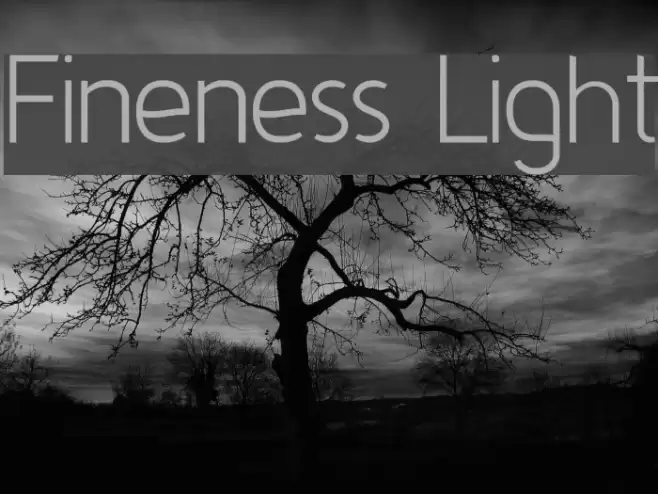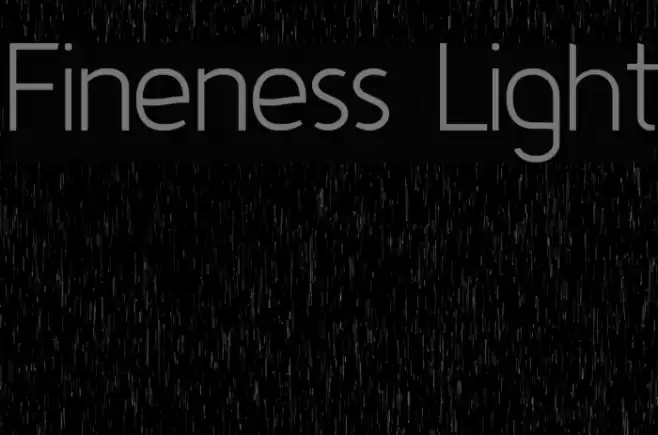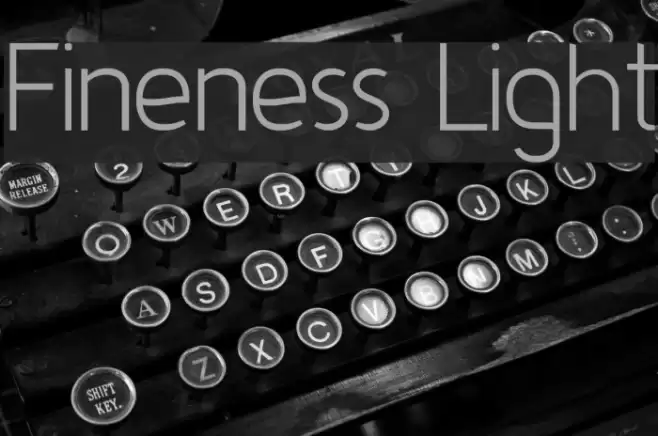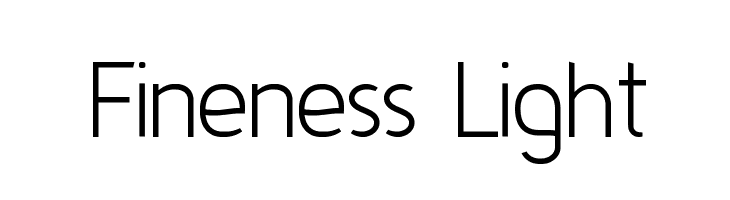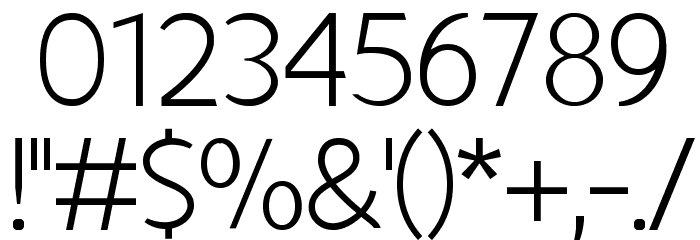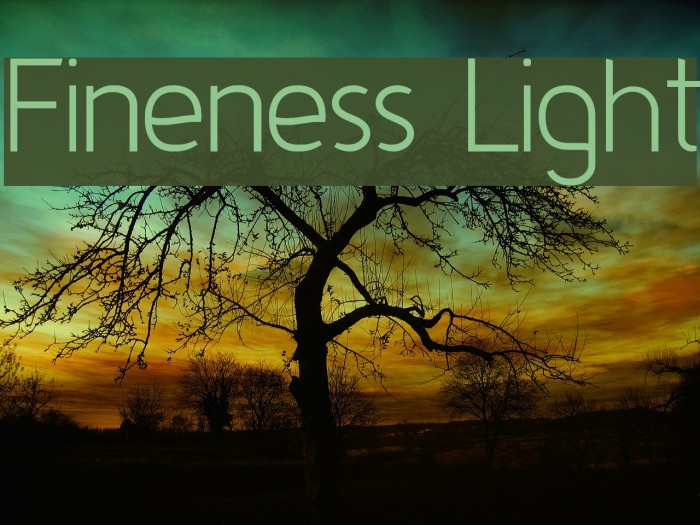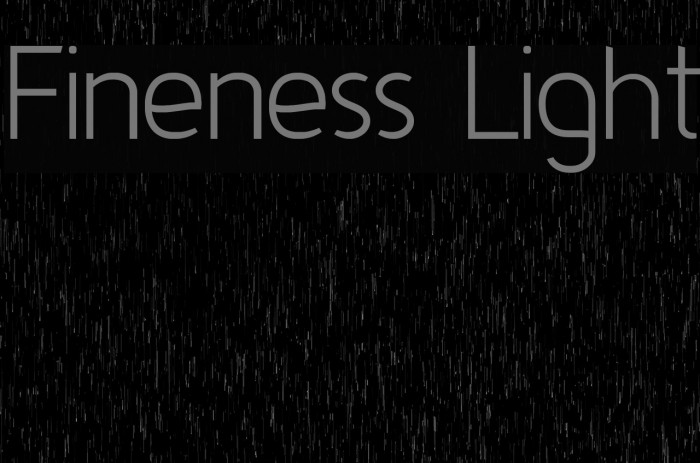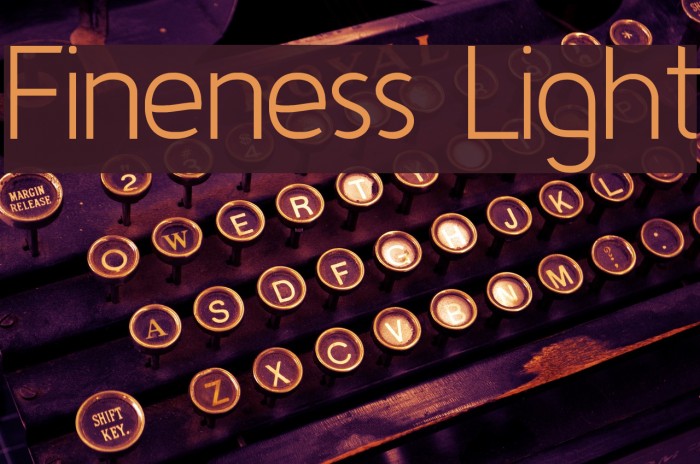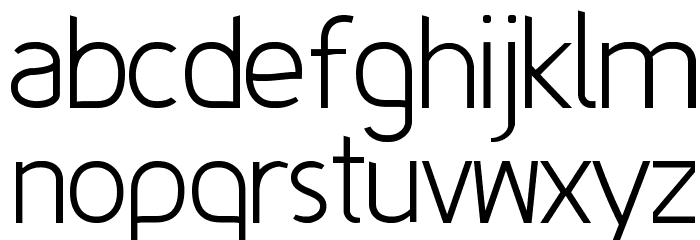
Fineness Light
This font features a clean and modern sans-serif design with a light weight, offering a sleek and minimalist appearance. The characters are evenly spaced with a normal width, providing excellent readability. The strokes are consistent in thickness, contributing to a low contrast look that enhances its contemporary style. The uppercase and lowercase letters maintain a uniform structure, while the numerals and special characters are designed to complement the overall aesthetic. This font is versatile, making it suitable for a variety of design projects.
A modern, light sans-serif font with low contrast and excellent readability.
- Proposed Projects: Ideal for branding, web design, corporate materials, and minimalist graphic design projects.